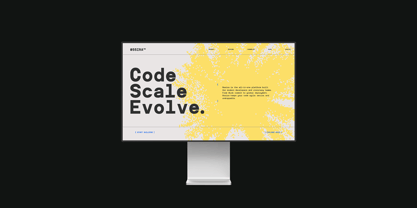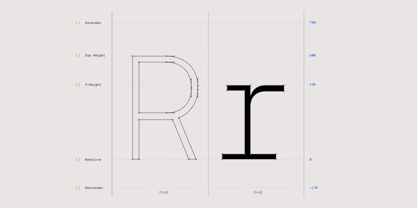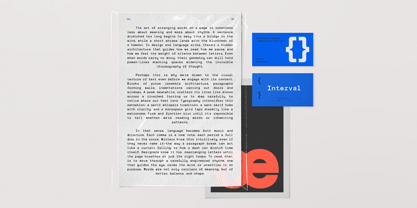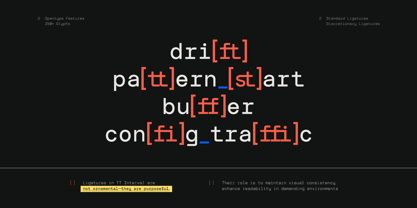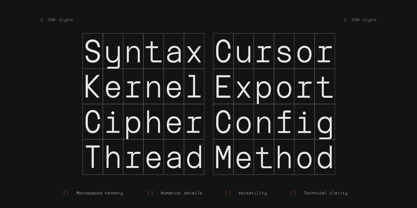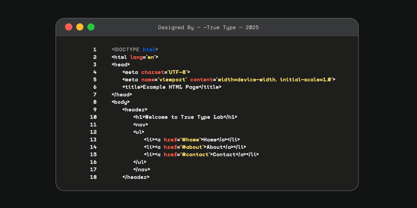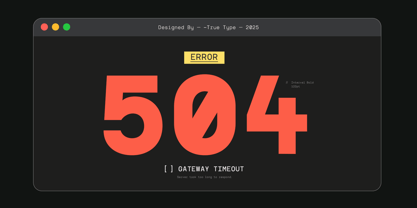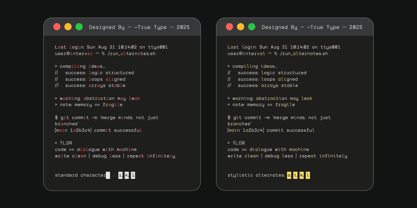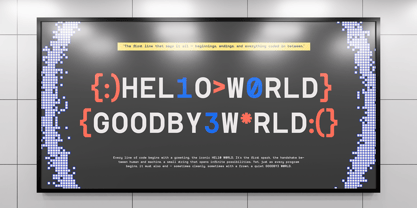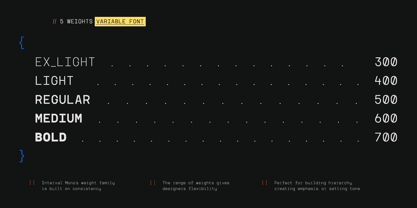
TRT Interval
by True Type Lab
The TRT Interval Font Family was designed by Yusilo Oktaprima Ardani and published by True Type Lab. TRT Interval contains 5 styles and family package options. More about this family
When I started working on TRT Interval, I was drawn to the quiet strength of simple leTRTerforms—particularly those found in classic monospace and geometric typefaces. Their clarity, structure, and rhythm inspired me to create something that felt equally balanced, but more adaptable for today’s design needs.
With TRT Interval, I focused on consistent widths and clean lines, building each character with precision and restraint. While its foundation is rooted in geometry and a modular grid, subtle details in select glyphs help bring a human touch—making it feel less mechanical, and more approachable.
The result is TRT Interval — a modern monospace sans serif designed for clarity, rhythm, and versatility. Whether used in branding, editorial layouts, user interfaces, or code, Interval delivers a strong typographic voice that’s both functional and refined.
Designers: Yusilo Oktaprima Ardani
Foundry: True Type Lab